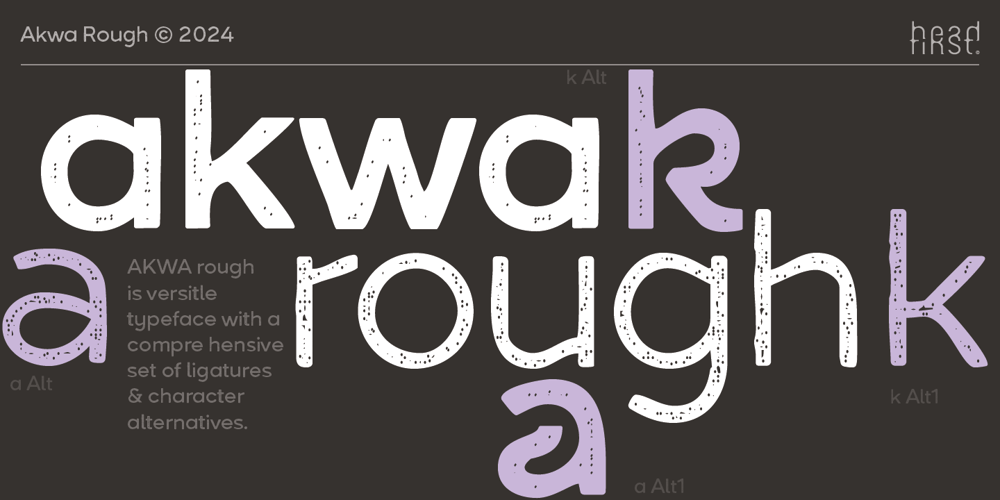
Akwa Rough Font Family was designed by Morice Kastoun and published by HeadFirst. Akwa Rough contains 10 styles and family package options. Introducing Akwa Rough, a remarkable san-serif typeface that effortlessly blends elegance with versatility. Drawing inspiration from timeless geometric shapes with low-contrast liner forms, Akwa exudes a sense of modern sophistication. Akwa will elevate your designs with its refined functionality, beauty and adaptability.